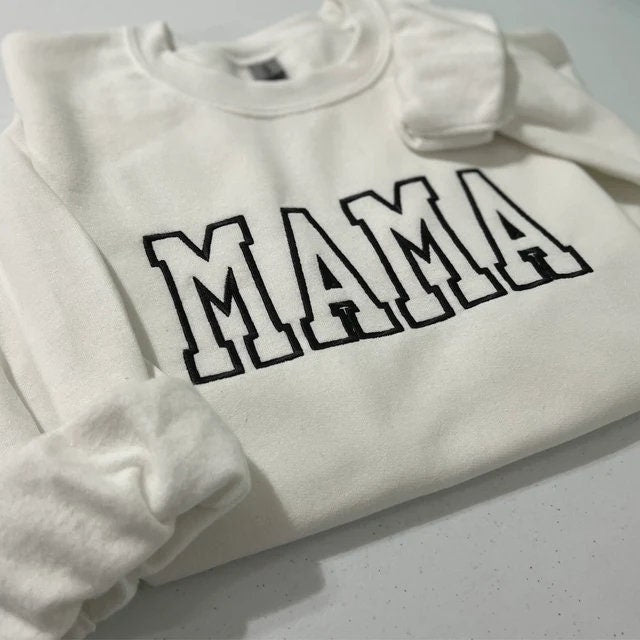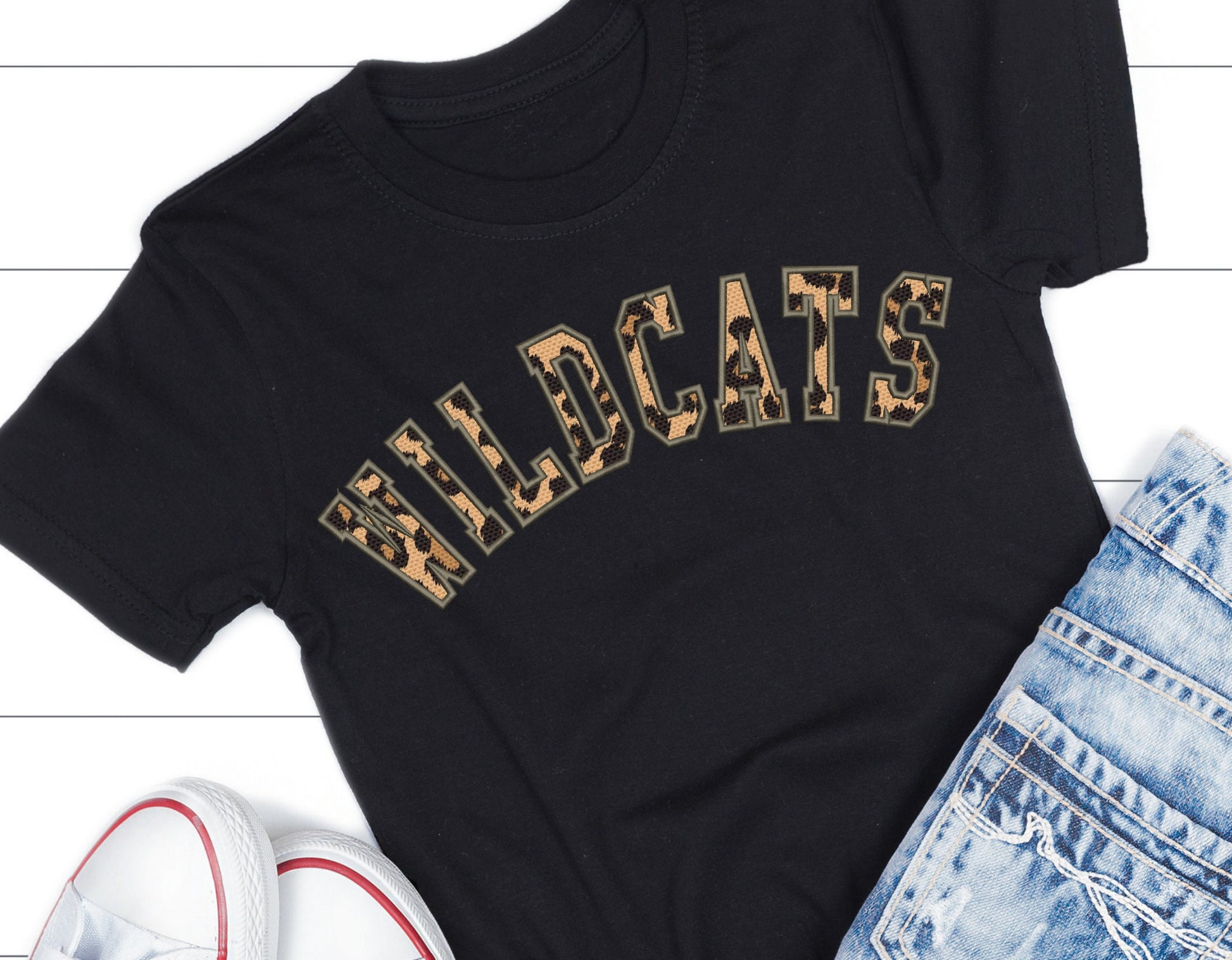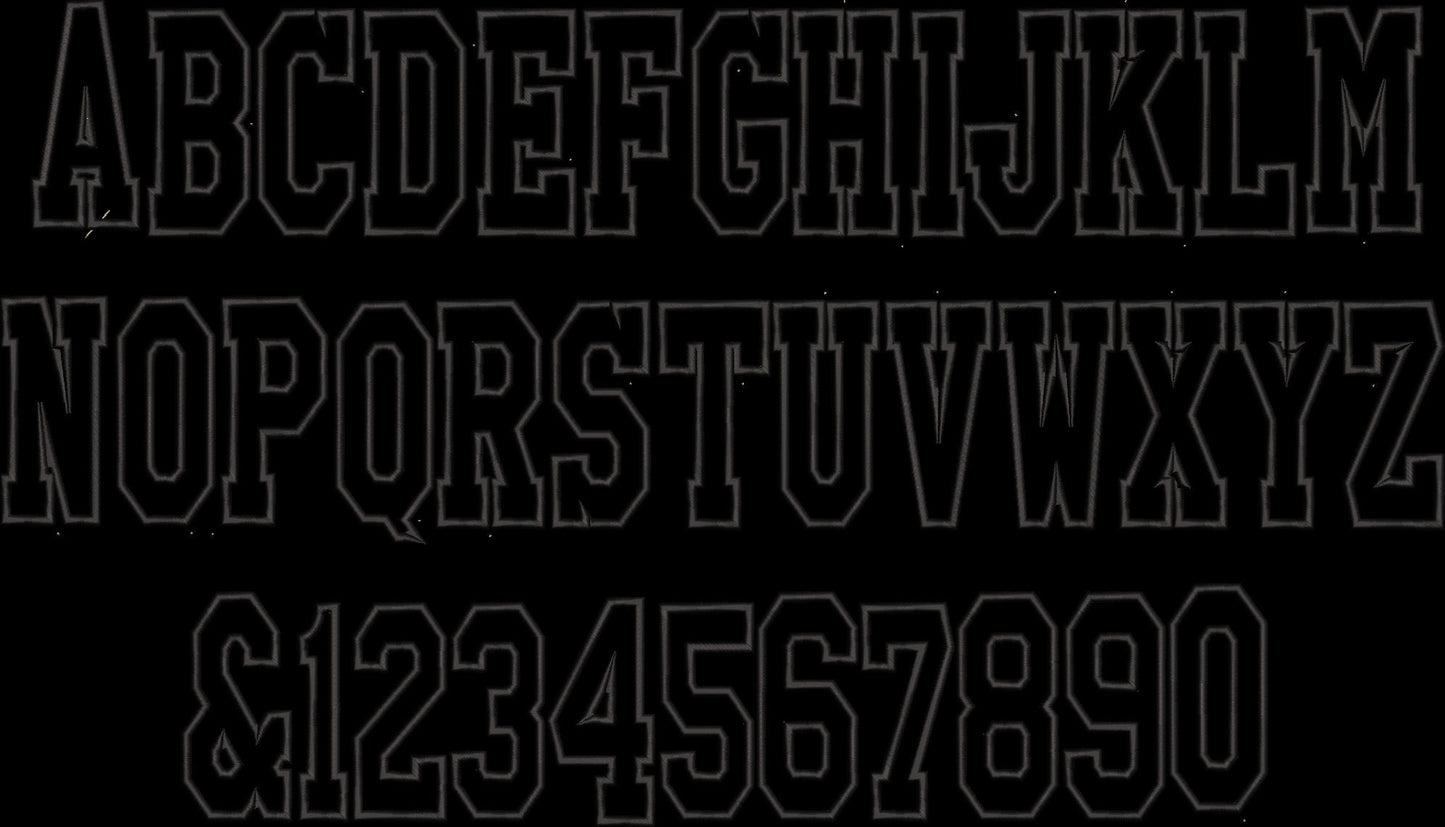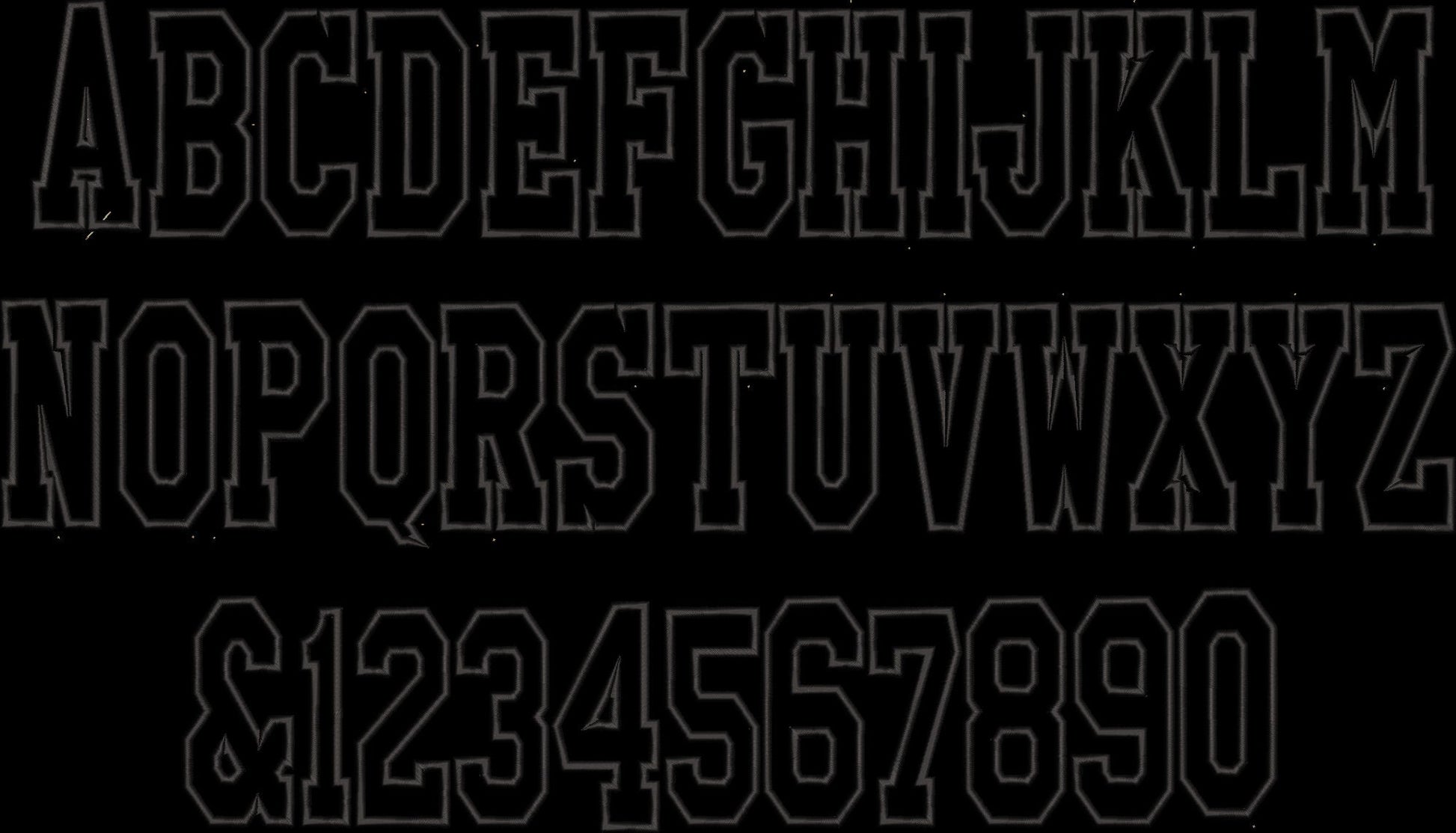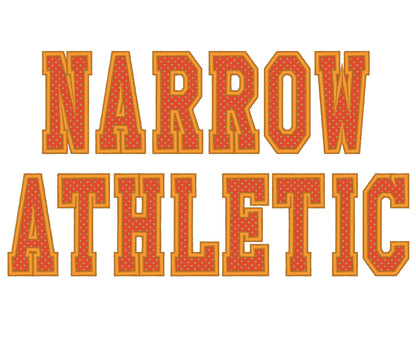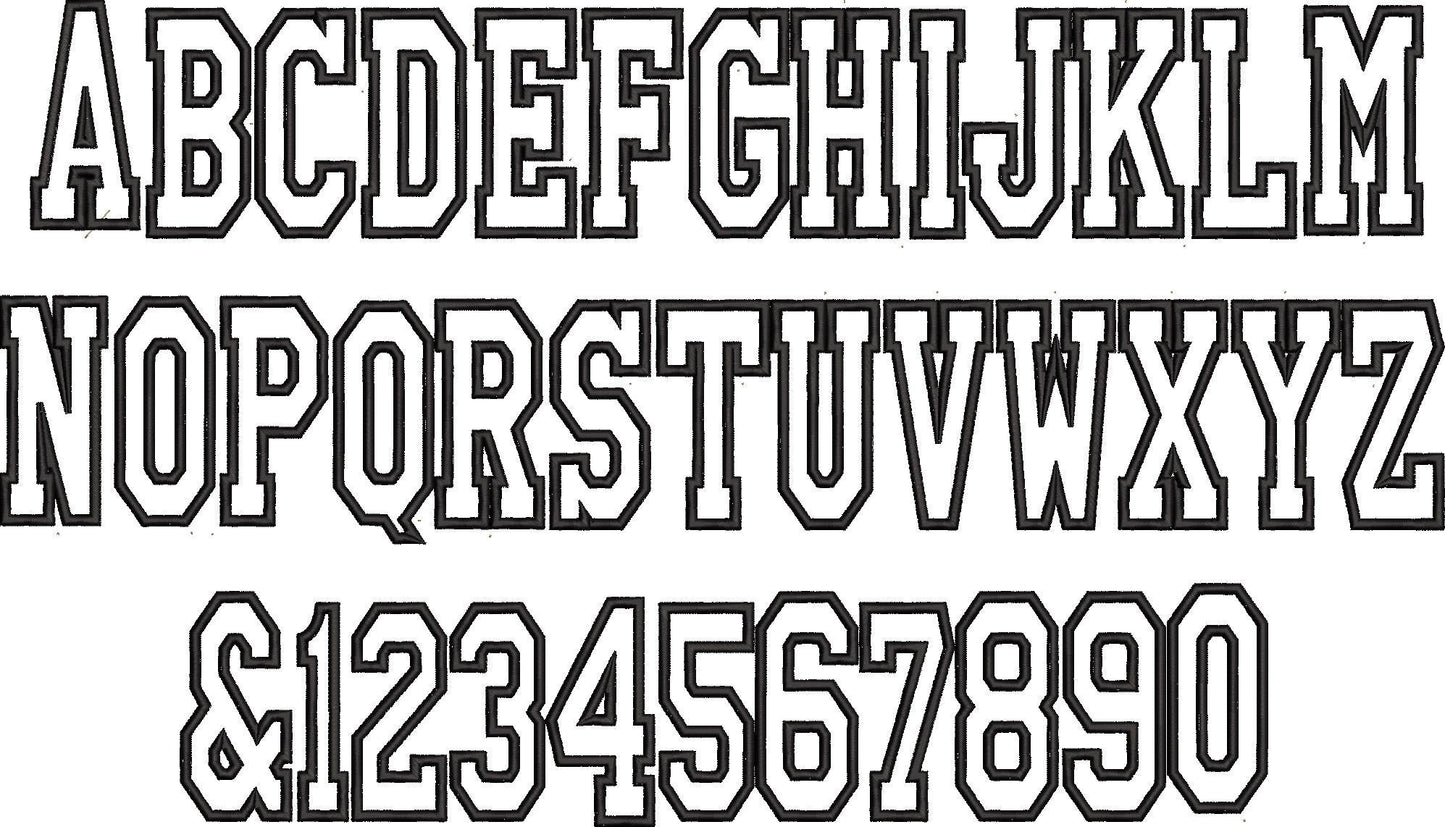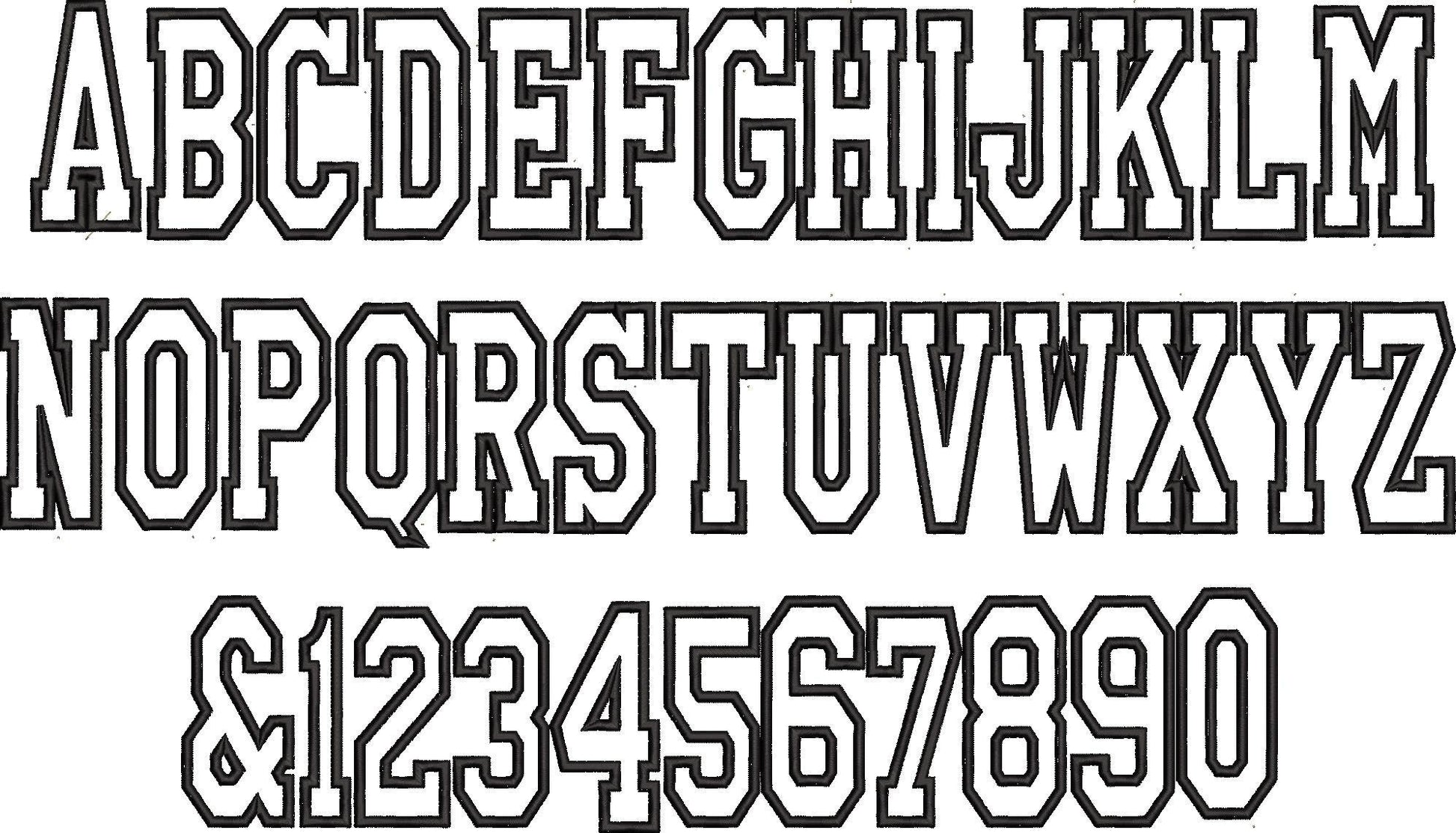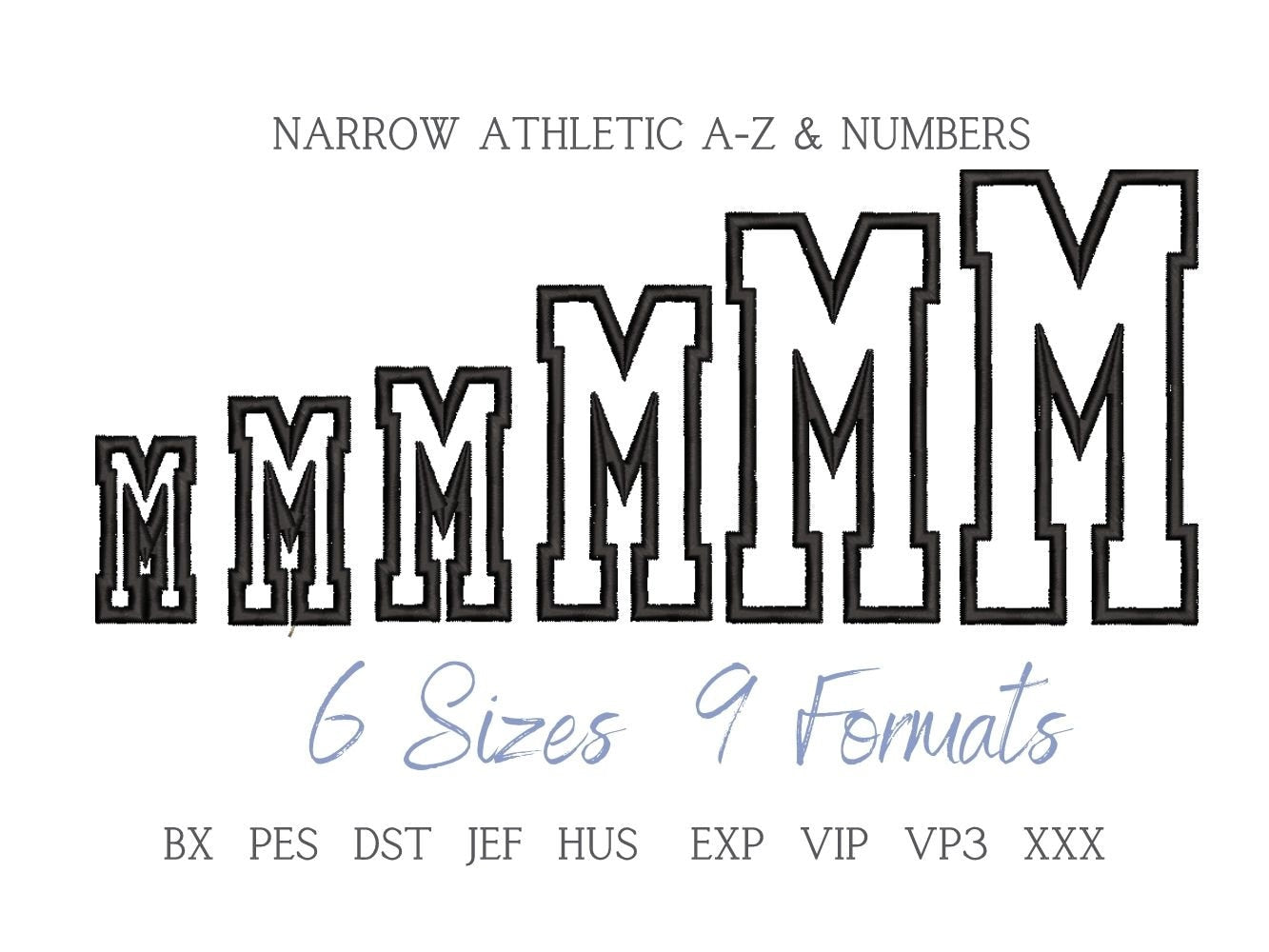
Or click to open the linkA tall, narrow athletic font stitched as applique. Made for team shirts, jerseys, school spirit wear and sports bags.
Capital letters A to Z, numbers 0 to 9 and an ampersand, in six sizes: 1.7, 2.2, 2.5, 3.5, 4.1 and 4.5 inches. Applique with a nice wide satin stitch outline.